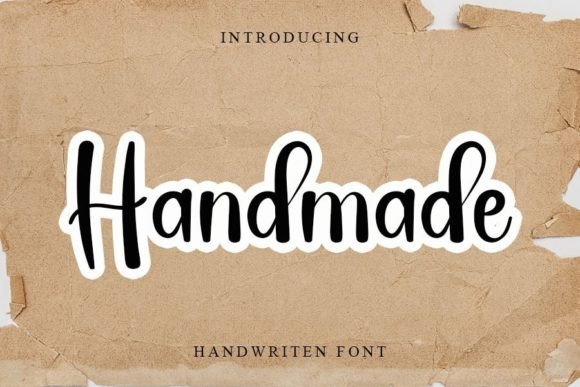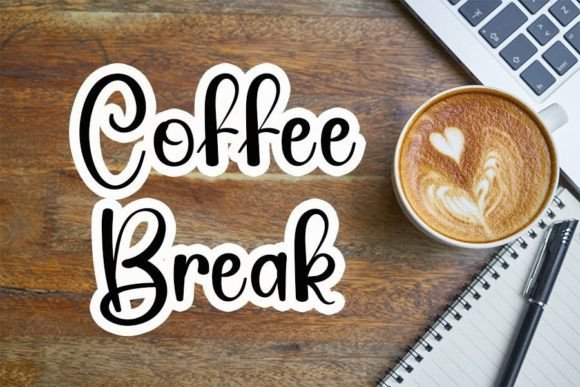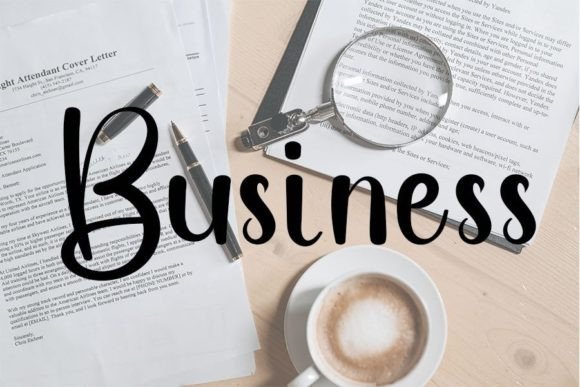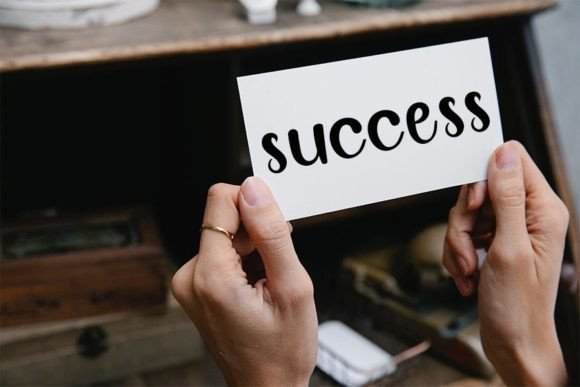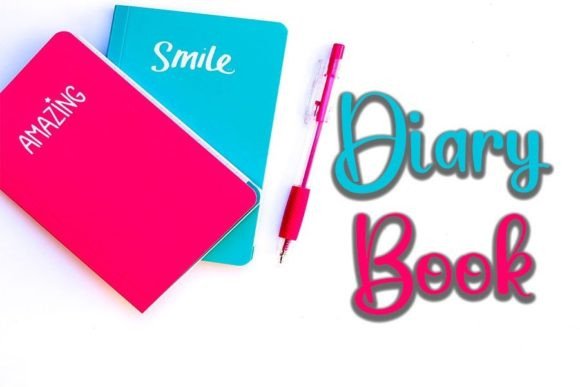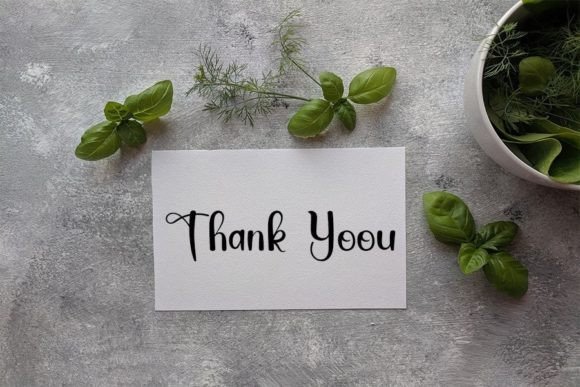
“Handmade” is a friendly handwritten font meticulously designed to become a beloved favorite. It skillfully combines classy calligraphic influences with a contemporary and fresh feel, making it a versatile choice for a variety of creative projects. Incorporate “Handmade” into your designs, and watch them become outstanding with its unique charm.
The calligraphic influences in “Handmade” contribute to its elegant and refined appearance. The meticulously crafted letterforms reflect the artistry of traditional calligraphy, adding a sense of grace and sophistication to the font. This makes it an excellent option for projects that demand a touch of timeless and classy aesthetics.
Simultaneously, the friendly and contemporary feel of “Handmade” ensures that it remains relevant and approachable. The font effortlessly adapts to modern design sensibilities, making it suitable for a wide range of applications in today’s creative landscape.
Whether you’re working on branding, invitations, social media graphics, or any other design project, “Handmade” brings a delightful and distinctive quality to your typography. It introduces a personal touch to your creations, making them stand out with a friendly and approachable vibe.
In branding, “Handmade” becomes a pivotal element in creating a memorable and personable brand identity. Its unique fusion of classic and contemporary elements sets your brand apart, leaving a positive and lasting impression on your audience.
For invitations, the font adds a touch of warmth and charm. Whether used for wedding invitations, party announcements, or any event where a friendly and elegant touch is desired, “Handmade” enhances the overall invitation design.
In social media graphics and marketing materials, the font brings a playful yet sophisticated vibe. Its friendly demeanor makes it suitable for conveying messages in a visually appealing and approachable manner.
Overall, “Handmade” is a font that invites you to embrace its friendly and versatile nature. Its ability to balance traditional calligraphic influences with a contemporary feel makes it an excellent choice for designers seeking a font that adds a touch of timeless elegance and modern charm to their projects.